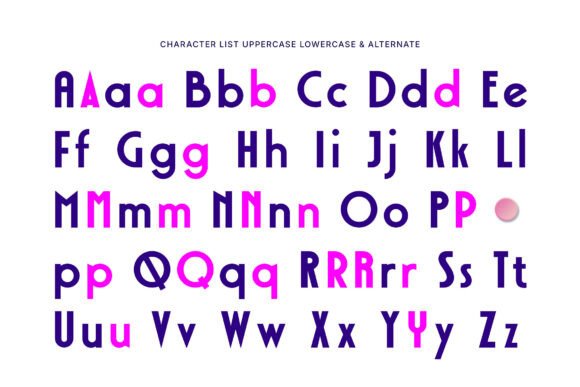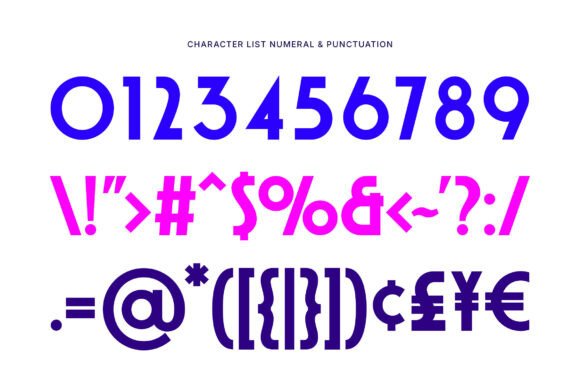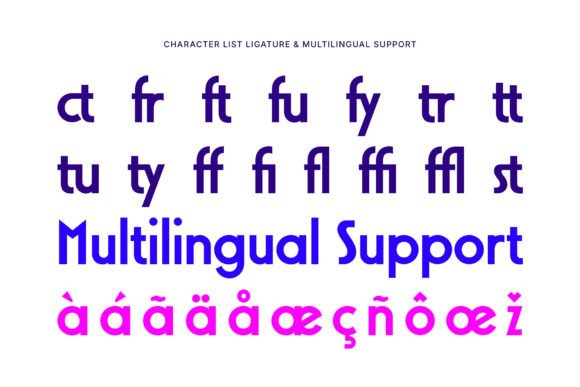
Introduction to Neostica Font
Have you ever stared at a blank canvas, desperately searching for the perfect font to bring your creative project to life? The blank page can be intimidating, but what if you had a secret weapon at your disposal? Enter the Neostica Font, a striking geometric display sans-serif font that’s about to revolutionize the way you design.
With its bold, modern aesthetic and confident letterforms, the Neostica Font is the ultimate design resource for anyone looking to make a statement. Whether you’re working on a high-end tech interface, a powerful advertising campaign, or a sleek brand identity, this exceptional display typeface is sure to deliver. And the best part? It’s available for free download, making it an accessible high-quality design resource for creatives of all levels.
From its clean lines to its strong presence, the Neostica Font is the perfect choice for designers who want to create a lasting impression. And with its PUA-encoded features, you’ll have effortless access to all glyphs, swashes, and alternate characters, ensuring that your design is both visually stunning and highly legible, even against dynamic backgrounds.
Key Features of Neostica Font
- High-quality design resource suitable for various creative projects, including logos, brochures, and digital displays.
- Comes in a single weight, making it an ideal choice for designers seeking a clean and modern aesthetic.
- Perfect for designers seeking a versatile and stylish font to elevate their creative projects.
Honest Review: Neostica Font
I recently had the chance to work with the Neostica Font, and I must say it’s been a game-changer for my creative project. As a designer, I’m always on the lookout for high-quality design resources, and this font definitely delivers.
What works well: ✨ The font’s modern and sleek design makes it perfect for a wide range of creative projects, from digital art to branding materials. I also appreciate that it’s available for free download, which is always a bonus for designers on a budget. The transparent background option is also a nice touch, allowing me to easily customize the font to fit my design needs.
However, I did encounter some limitations: ⚠️ The font’s versatility can also be a drawback, as it can be a bit overwhelming to choose the right style and size for a specific project. Additionally, the font’s design can be a bit too minimalist for some projects, making it difficult to add enough visual interest.
Overall, I’m impressed with the Neostica Font and would definitely recommend it to fellow designers. It’s a great addition to any design resource library, and I’m looking forward to using it in future projects.
Pros:
- Modern and sleek design
Cons:
- Can be overwhelming to choose the right style and size
- Design can be too minimalist for some projects